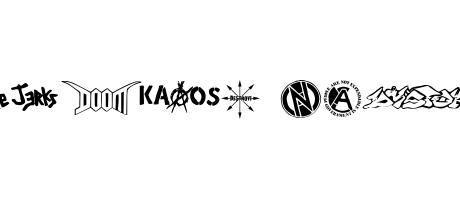
Punk Rawk
Punk Rawk Dingbatz is a chaotic collection of graffiti-inspired glyphs. It's aggressive, rebellious, and energetic. Sharp angles and jagged lines dominate, creating a visually jarring, yet unified, font ideal for conveying raw power and anarchy. Think street art meets heavy metal album cover.